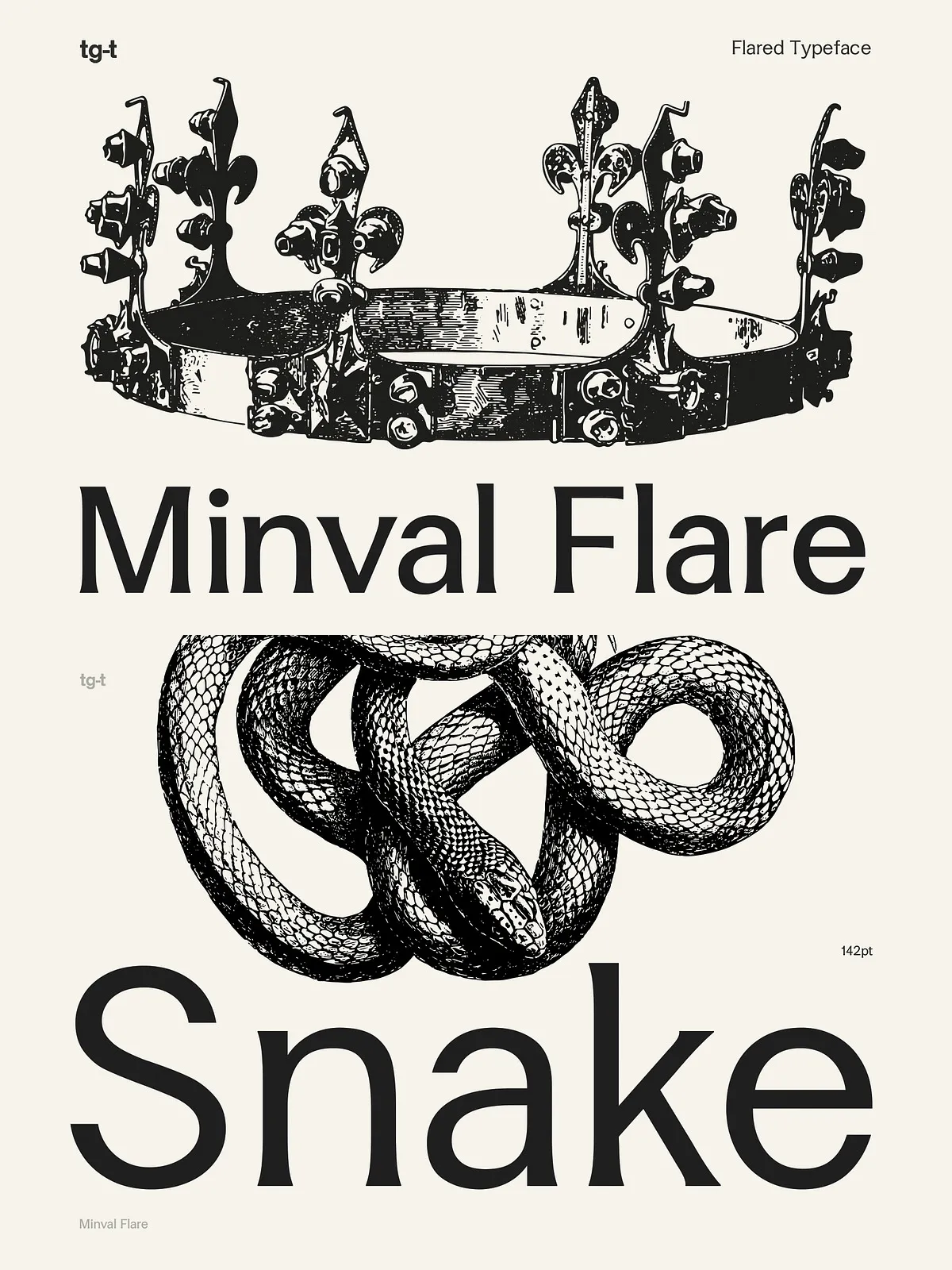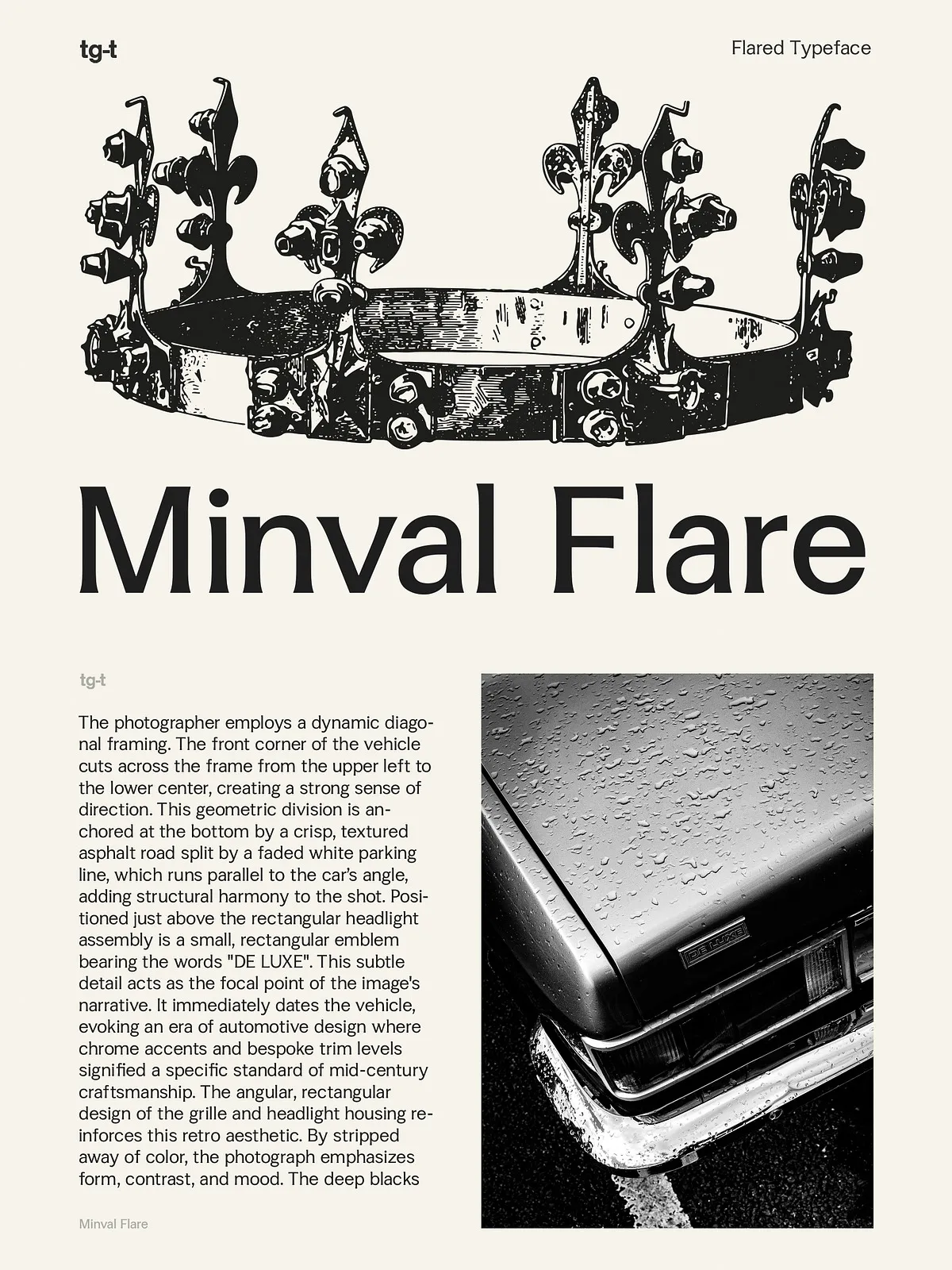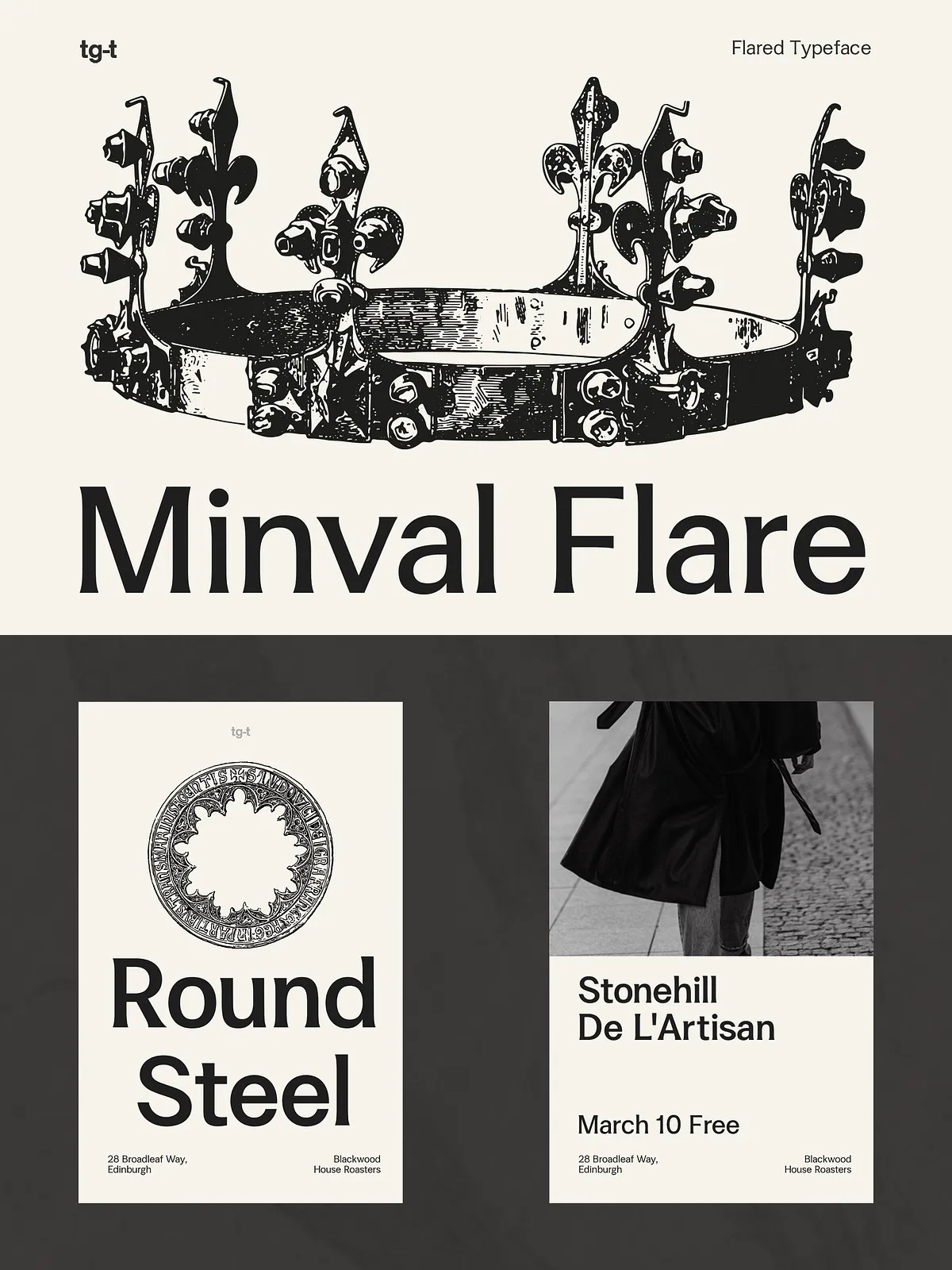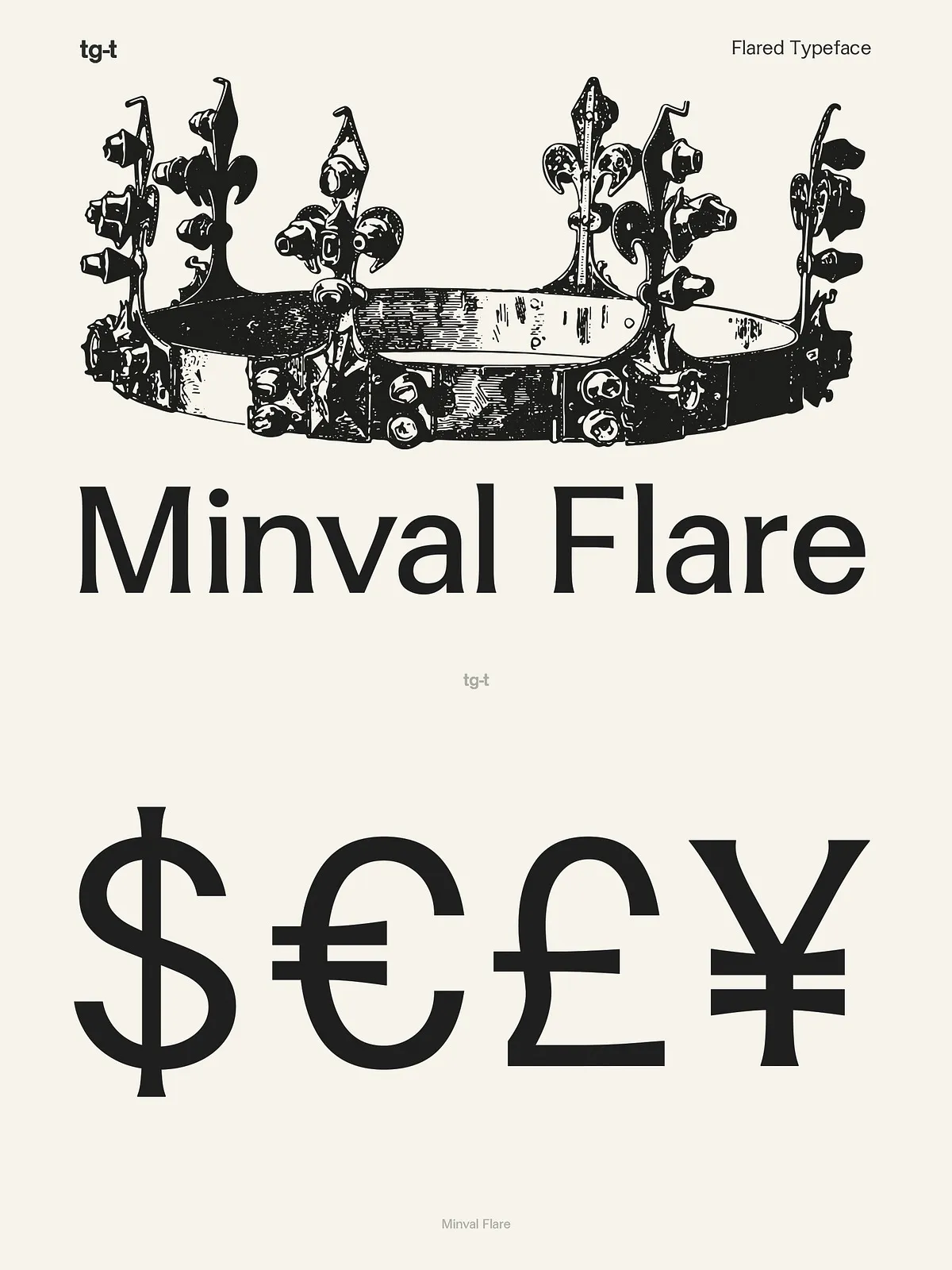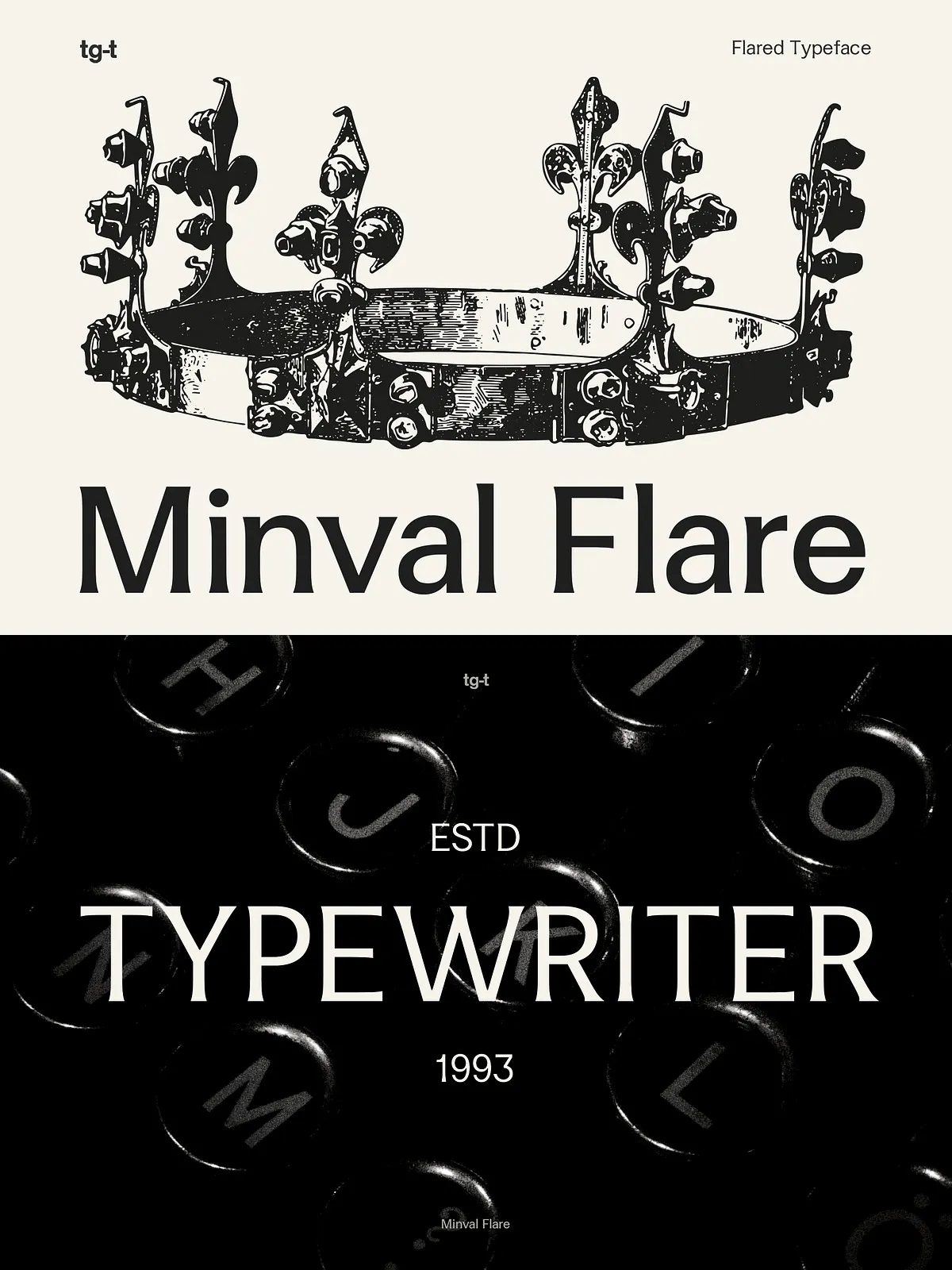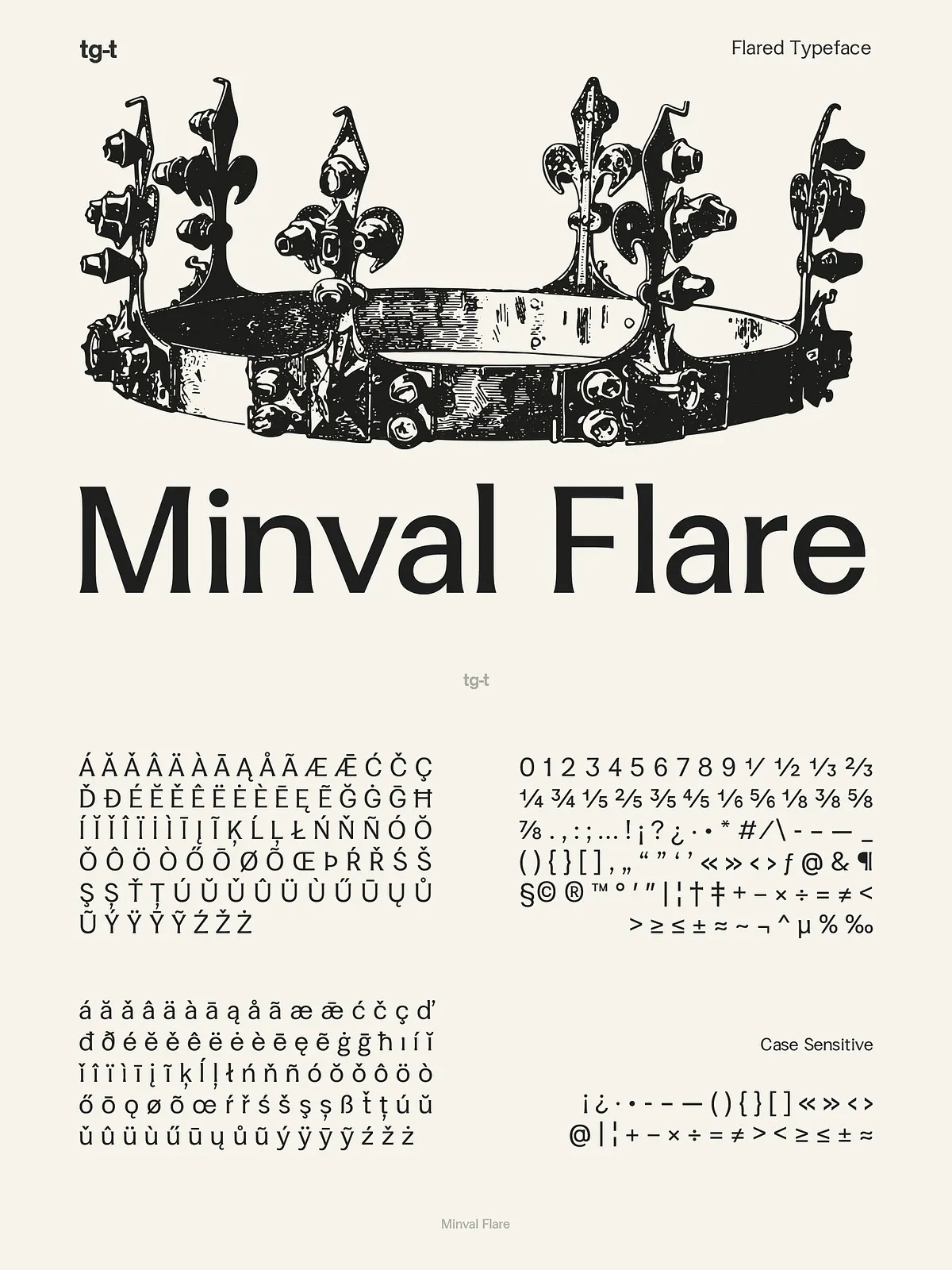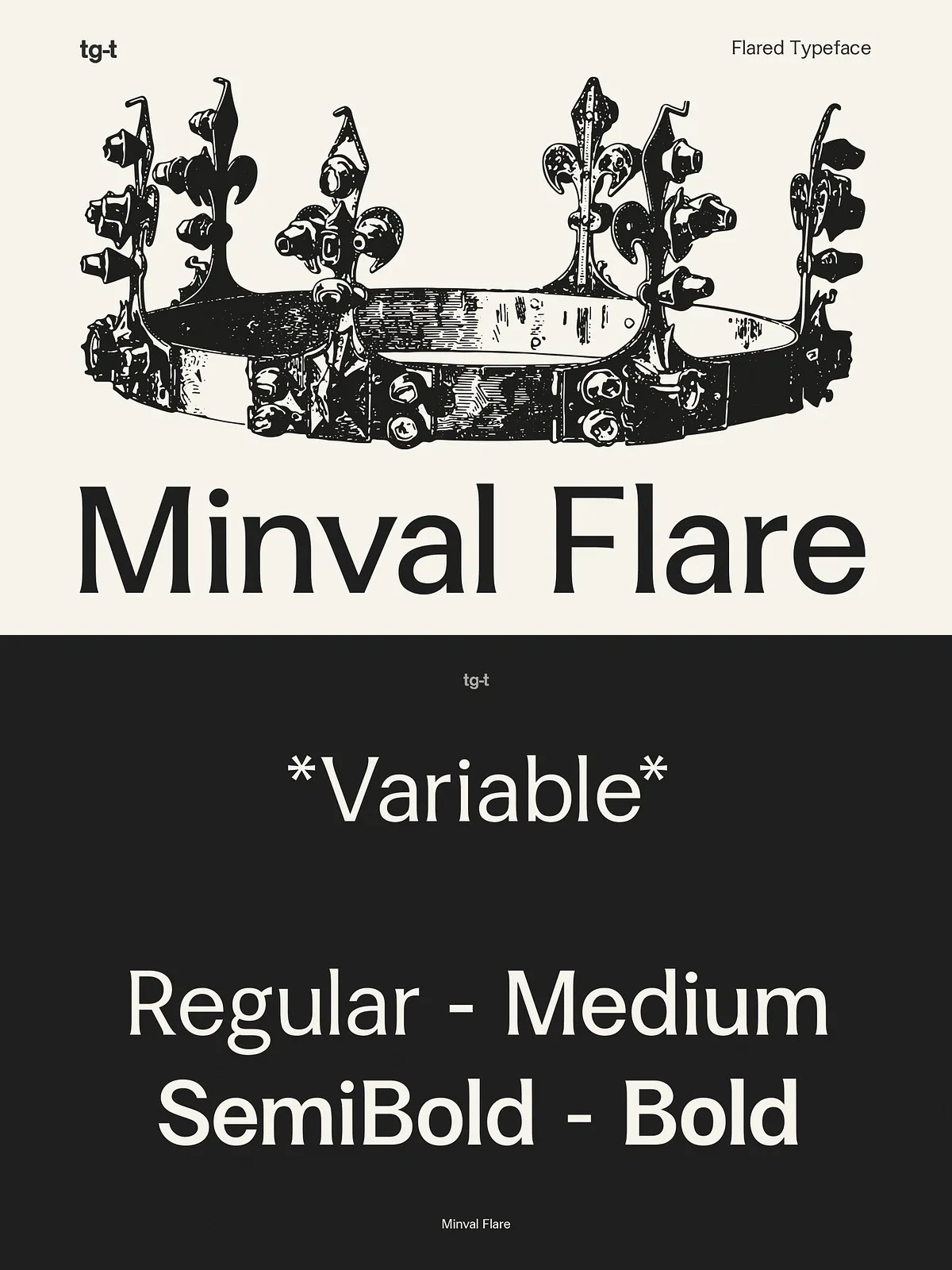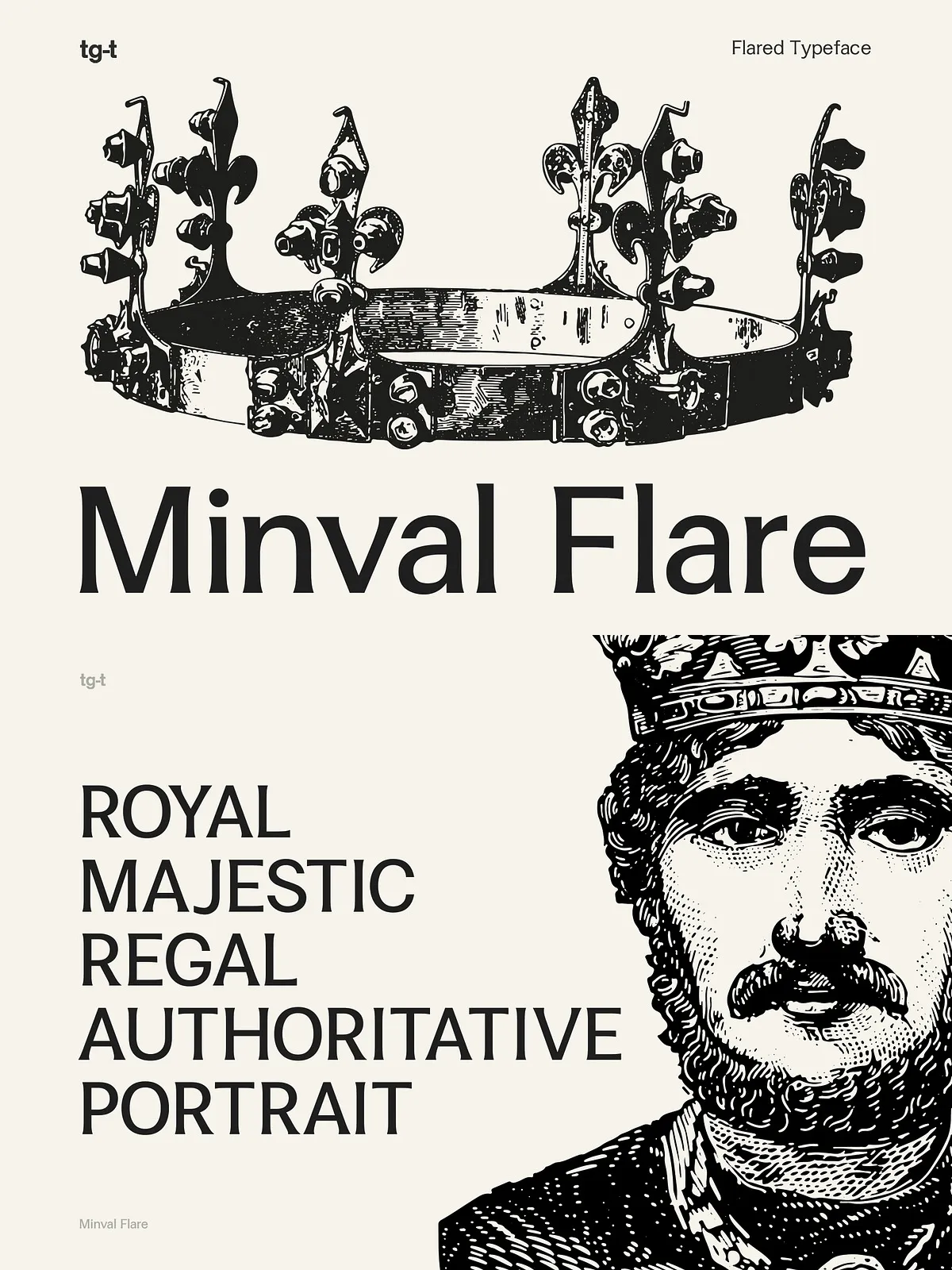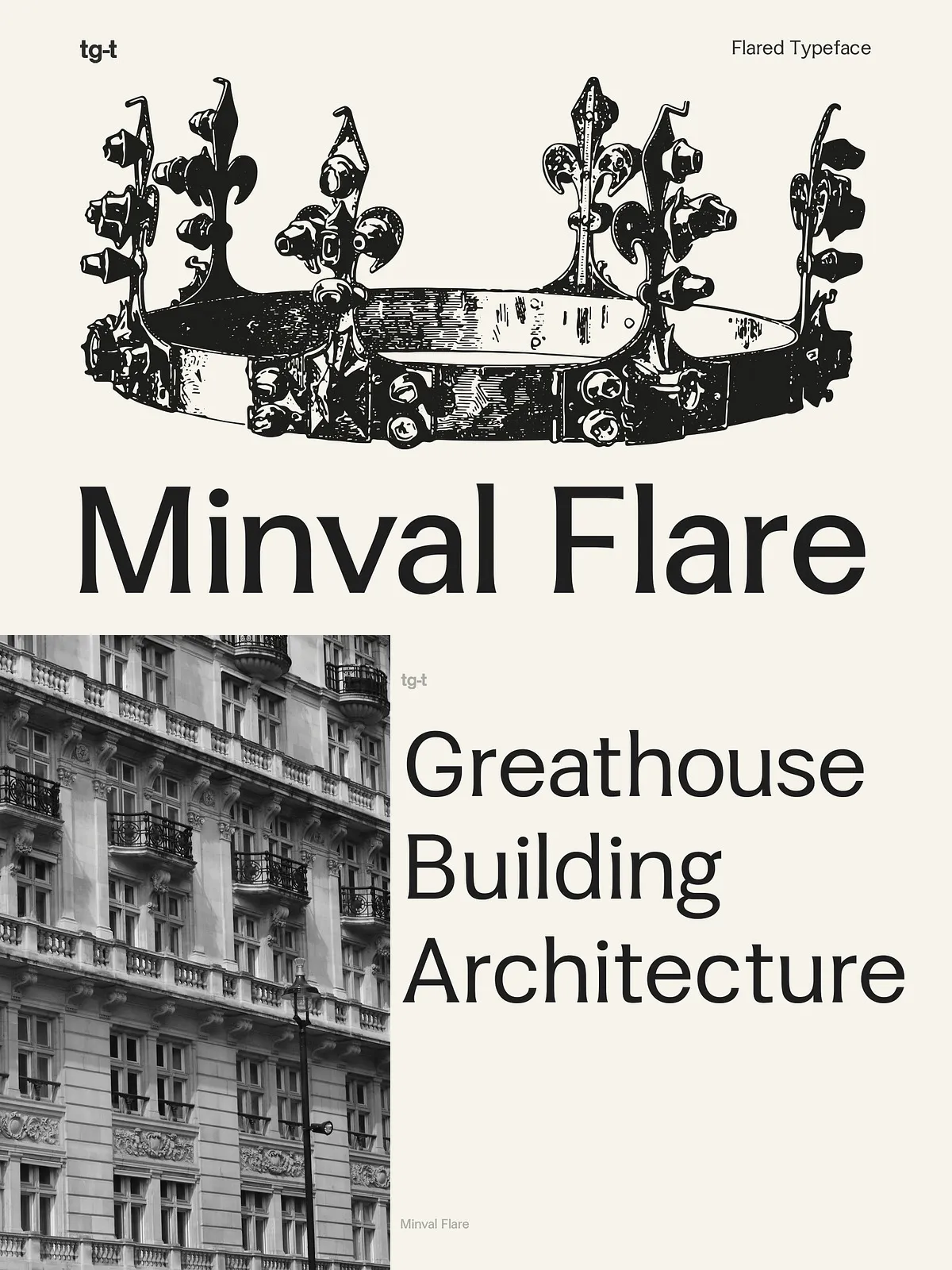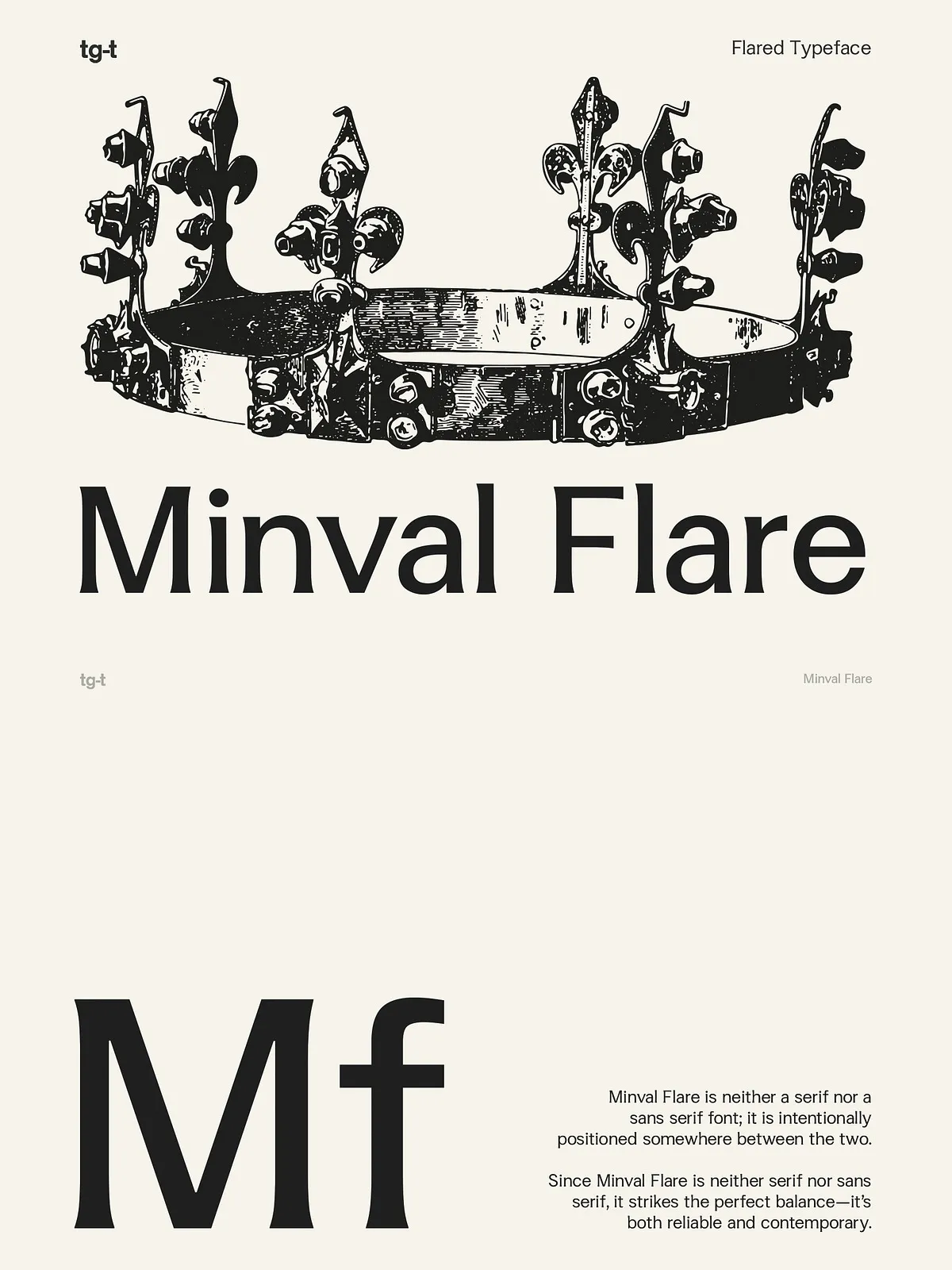
Minval Flare is a refined modern serif typeface designed for designers, creative directors, and brands who demand sophistication and clarity. Meticulously crafted to blend clean contemporary proportions with subtle, distinctive flared terminals, this font delivers a timeless yet unique personality. It strikes the perfect balance between traditional serif elegance and modern minimalism, making it an ideal choice for projects that require a touch of luxury without overwhelming the viewer.
Whether you are creating premium logos, fashion branding, magazine layouts, beauty packaging, or responsive websites, Minval Flare adapts effortlessly to both print and screen. Its high readability and balanced letterforms ensure that your message is not only seen but felt, creating a lasting impression on your audience. The subtle flare details add a layer of visual interest and exclusivity, setting your designs apart from generic sans-serif trends.
Unmatched Versatility with Variable Font Technology
Seamless Design Control
At the heart of Minval Flare is its powerful Variable Font architecture. This innovation allows for smooth, continuous weight transitions from Regular to Bold, giving designers complete creative flexibility. You can fine-tune the weight to suit any layout, ensuring perfect harmony between headlines and body text. This capability not only enhances visual hierarchy but also keeps projects lightweight and organized by reducing the need for multiple font files.
With Variable Font technology, you can create dynamic, responsive typography systems that adapt seamlessly to different screen sizes and print requirements. Whether you need a delicate, light weight for elegant editorial copy or a robust, bold weight for striking headlines, Minval Flare delivers precision at every point along the axis. This flexibility empowers you to experiment with form and function, pushing the boundaries of modern typographic design.
Ideal Applications and Use Cases
Where Minval Flare Shines
Minval Flare is versatile enough to handle a wide array of creative challenges. Its elegant structure and refined details make it particularly suited for:
- Luxury Branding: Establish a premium identity for high-end products and services.
- Editorial Design: Enhance readability and aesthetic appeal in magazines, newspapers, and digital publications.
- Fashion Magazines: Complement fashion photography and layout design with a sophisticated typographic voice.
- Logo Design: Create memorable and timeless logotypes for brands seeking elegance and strength.
- Packaging Design: Add a touch of luxury to product labels, beauty packaging, and retail displays.
- Beauty & Cosmetics: Perfect for brands that value refinement, quality, and attention to detail.
- Interior & Architecture Brands: Convey stability, elegance, and modern aesthetics for architectural firms and interior designers.
- Website Typography: Ensure excellent readability and visual appeal across all devices and browsers.
- Creative Portfolios: Showcase your work with a typeface that reflects professionalism and taste.
- Premium Social Media Graphics: Engage your audience with high-quality, stylish content that stands out in crowded feeds.
Comprehensive Features and Specifications
Technical Highlights
Minval Flare is equipped with a robust set of features designed to support professional workflows and global projects. The typeface includes full Latin Extended language support, ensuring compatibility with a wide range of international alphabets. It also features comprehensive Uppercase & Lowercase sets, numerals, and punctuation marks, along with advanced OpenType features for enhanced typographic control.
- Variable Font: Smooth weight transitions for flexible design.
- Elegant Modern Serif: Clean lines with subtle flared terminals.
- High Readability: Optimized letterforms for clear communication.
- Latin Extended Language Support: Global compatibility for diverse audiences.
- OpenType Features: Advanced typographic controls for professional design.
- Multilingual Support: Ready for worldwide use.
- Print & Web Ready: Optimized for both digital and physical mediums.
Why Choose Minval Flare?
In a world where visual communication is key, Minval Flare offers a sophisticated solution for designers who want to elevate their work. Its combination of modern elegance, variable flexibility, and comprehensive language support makes it a versatile tool for any creative project. Whether you are a seasoned professional or a budding designer, Minval Flare provides the reliability and style needed to create impactful, memorable designs. Choose Minval Flare to bring a touch of timeless luxury to your typography.